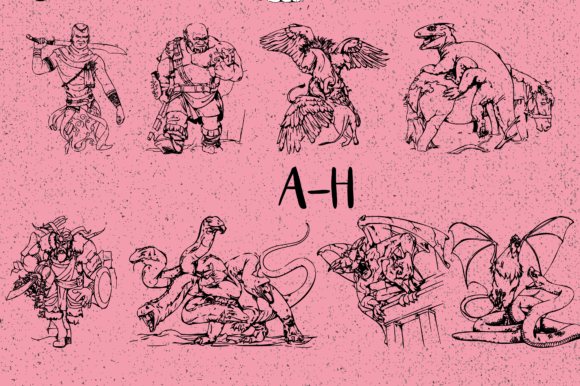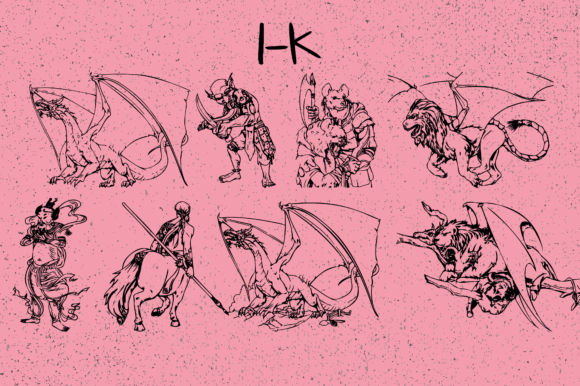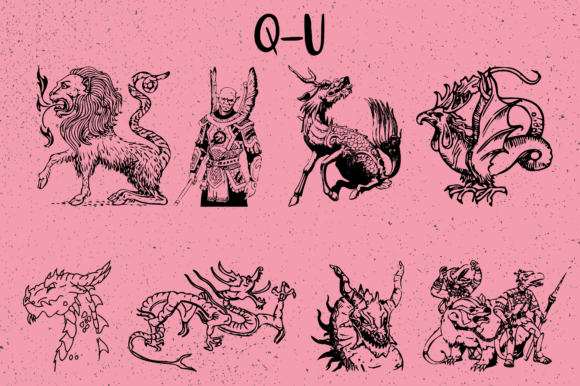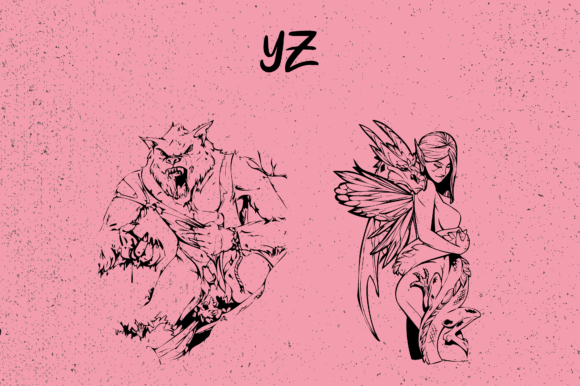
Legendary Characters Font
Legendary Characters is an extraordinary dingbats typeface specifically crafted to assist you in generating up to 62 distinctive mythological characters effortlessly. With this font, you can bring to life the legendary figures and creatures from various mythologies around the world.
By typing capital and small letters, you can summon characters inspired by Greek mythology, Norse mythology, Egyptian mythology, and many more. From gods and goddesses to legendary beasts and mythical beings, each glyph represents a unique and iconic figure.
Whether you’re working on a project related to storytelling, fantasy, gaming, or simply have a fascination for mythology, Legendary Characters font offers a vast array of options to enhance your creative endeavors. Use these mythological glyphs to create captivating illustrations, design mystical logos, or embellish your digital or printed materials with a touch of ancient lore.
The detailed and intricate design of each character glyph in Legendary Characters adds depth and authenticity to your creations. From the majestic Zeus to the fierce Fenrir, every symbol encapsulates the essence and aura of its mythological counterpart. This attention to detail allows you to showcase the rich storytelling traditions and cultural heritage associated with these legendary characters.
The versatility of Legendary Characters allows you to incorporate these mythological glyphs into a wide range of projects. Whether you’re designing book covers, posters, video game graphics, or creating digital artwork, the font provides you with an expansive repertoire of mythical figures to choose from. Create stunning compositions by combining multiple characters or use them individually as focal points.
Furthermore, the ability to customize the size, color, and placement of the glyphs ensures that you can seamlessly integrate them into your designs. Bring ancient tales to life with these iconic figures and captivate your audience with the allure of mythology.
In summary, Legendary Characters is a remarkable dingbats typeface that grants you access to a diverse collection of 62 mythological characters. Embrace the power and enchantment of legendary figures from various cultures as you infuse your projects with their captivating presence. Let your creativity soar as you embark on a mythical journey with the aid of this extraordinary font.